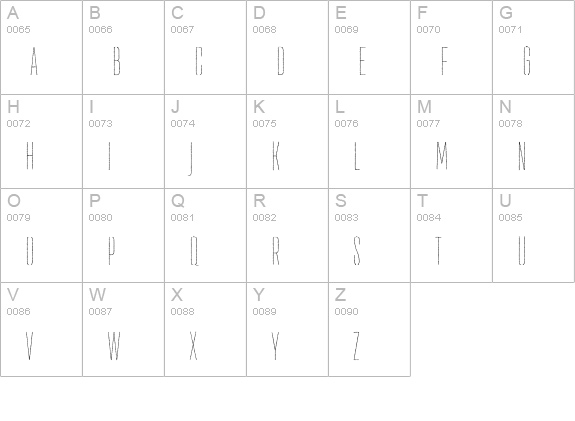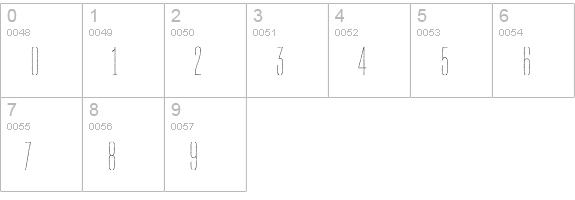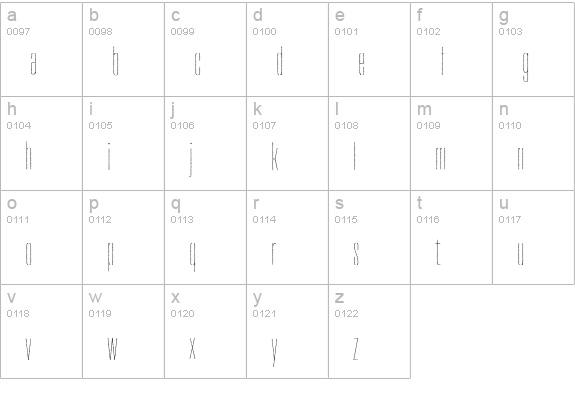
TT Bluescreens Rough Thin Font Details
TT Bluescreens Rough Thin is a delicate, low-contrast variant in the TT typeface family \xE2\x80\x94 well suited to fashion editorial, minimal branding, and high-contrast display.
TT Bluescreens Rough Thin font is a unique and edgy typeface that exudes a sense of modernity and boldness. Its rough and uneven edges give it a distinct and eye-catching appearance that is perfect for making a statement in your designs. This font is versatile and can be used for a variety of projects, from branding and advertising to posters and social media graphics. What's even better is that TT Bluescreens Rough Thin font is completely free to download at FontsMarket.com. You can easily add this striking font to your collection without any cost, making it a valuable asset for any designer looking to add a touch of creativity to their work. Embrace the boldness of TT Bluescreens Rough Thin font and take your designs to the next level with its unique and captivating style.